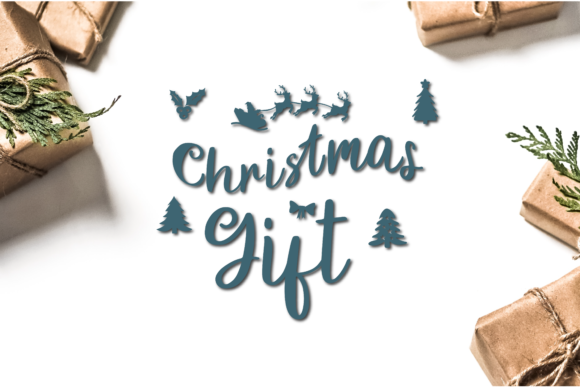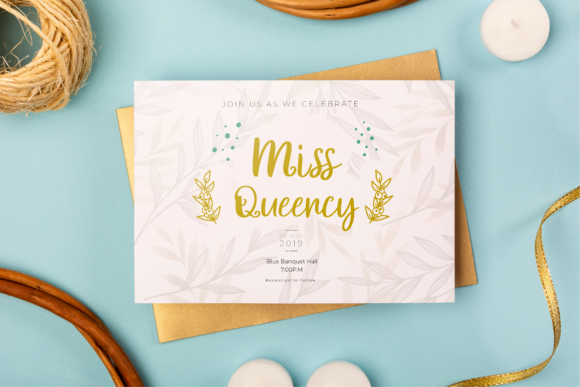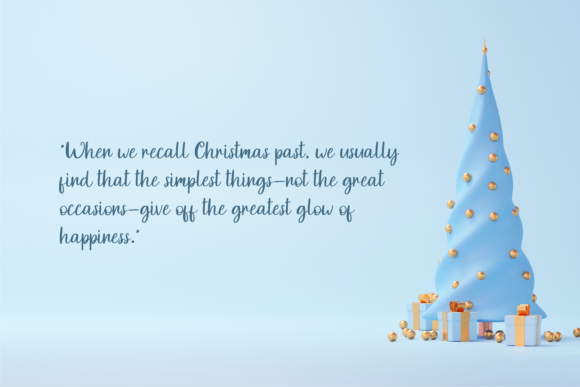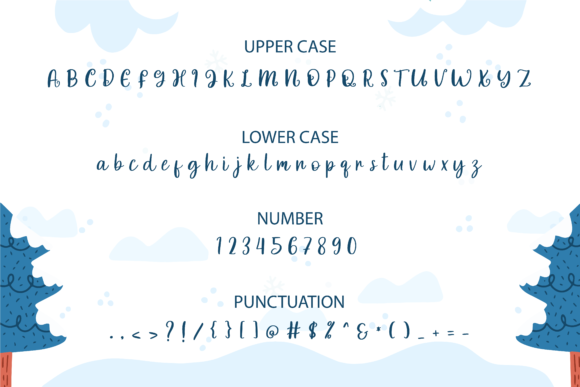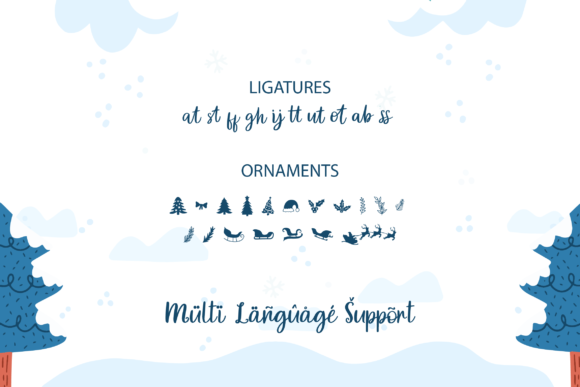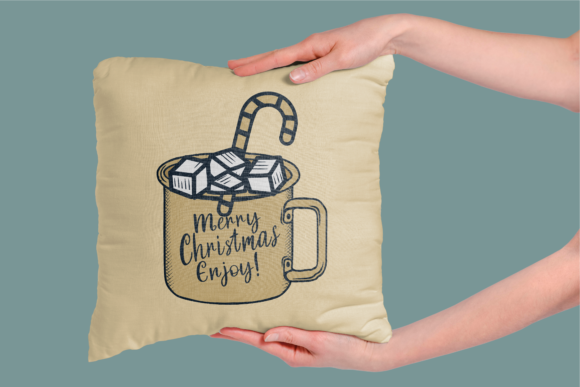
Introduction to Kringless Font Font
Fonts play a crucial role in design, and the Kringless Font font is a typeface that brings both character and versatility to any project. Whether you’re working on a branding project, a website, or a print design, the Kringless Font font offers a unique style that can elevate your work.
Kringless is a beautiful and sweet calligraphy typeface with characters that dance along the baseline.
It will add a luxury spark to any design project that you wish to create .
Key Features of Kringless Font Font
Why Choose Kringless Font Font?
The Kringless Font font is more than just a typeface – it’s a design tool that helps you communicate your message with style and clarity. Its unique character set and versatile design make it suitable for a wide range of applications, from elegant invitations to bold headlines.
With its carefully crafted letterforms and balanced proportions, the Kringless Font font ensures readability and visual appeal across all mediums.
What makes Kringless Font font special?
The Kringless Font font stands out with its unique design, exceptional readability, and versatility across various design applications.